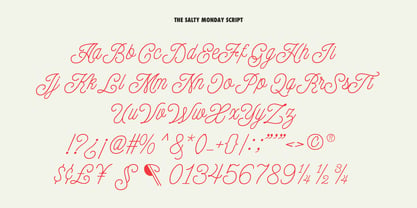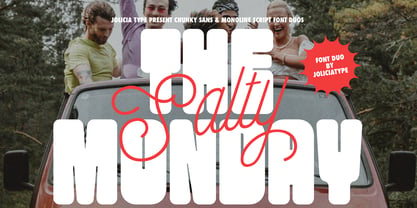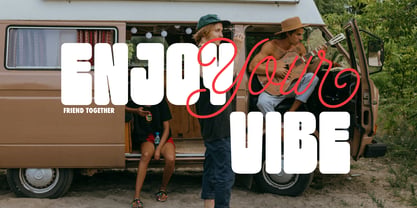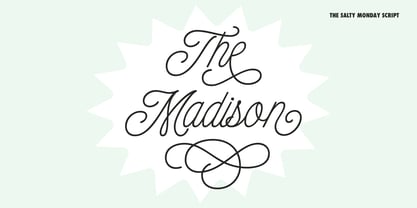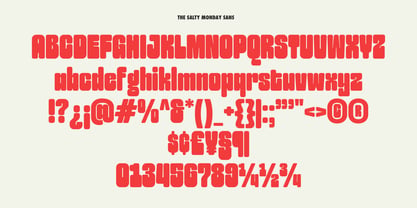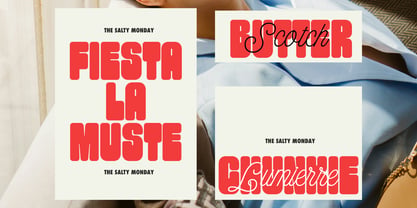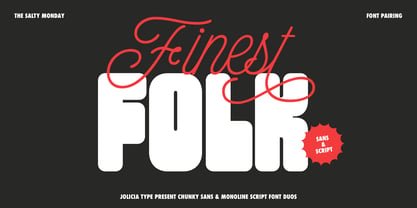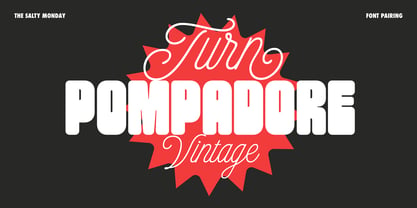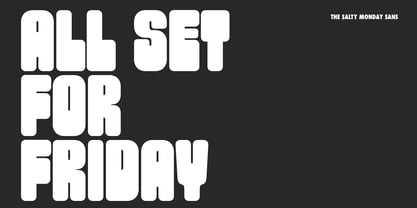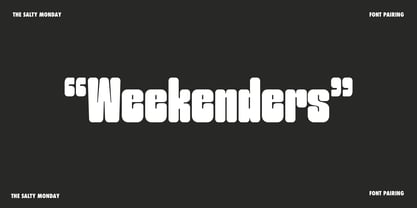
The Salty Monday
by Jolicia Type
The The Salty Monday Font Family was designed by Laire Banyu and published by Jolicia Type. The Salty Monday contains 2 styles and family package options. More about this family
The Salty Monday is a dynamic font duo that blends the bold energy of a chunky sans with the relaxed charm of a monoline script, creating a distinctive and full-of-character typeface. Designed to deliver strong visual contrast while maintaining harmony, this duo features thick, solid, and playful letterforms in its sans, paired with a smooth, flowing, and effortless script style. The chunky sans brings a confident, eye catching presence perfect for headlines, logos, and designs that demand instant impact. Meanwhile, the monoline script adds a warm, personal touch, introducing a sense of elegance and human connection to any composition. Together, they create a versatile combination suitable for a wide range of design needs, from branding and packaging to posters and social media content. Balancing boldness with fluidity, The Salty Monday delivers a modern, fun, and memorable visual style. Whether you're aiming for a laid-back yet standout look, The Salty Monday is the perfect choice to elevate your design.